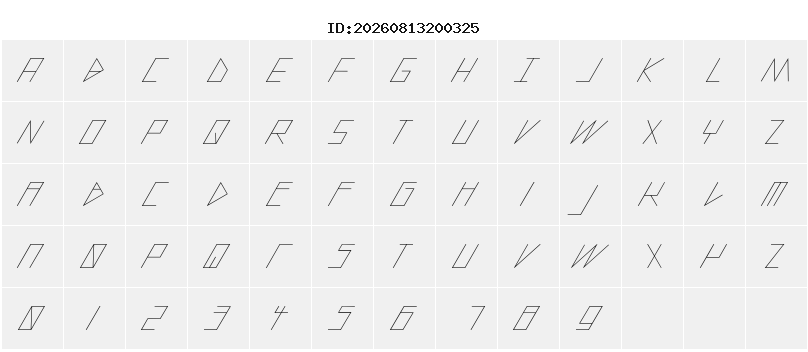
• Font Name: slanted ITALIC shift
• Designer: Manuel Viergutz
About slanted ITALIC shift.otf
slanted ITALIC shift.otf is a modern, elegant sans-serif font designed for ultimate readability and visual harmony. Perfect for branding, headlines, web design, and print materials.